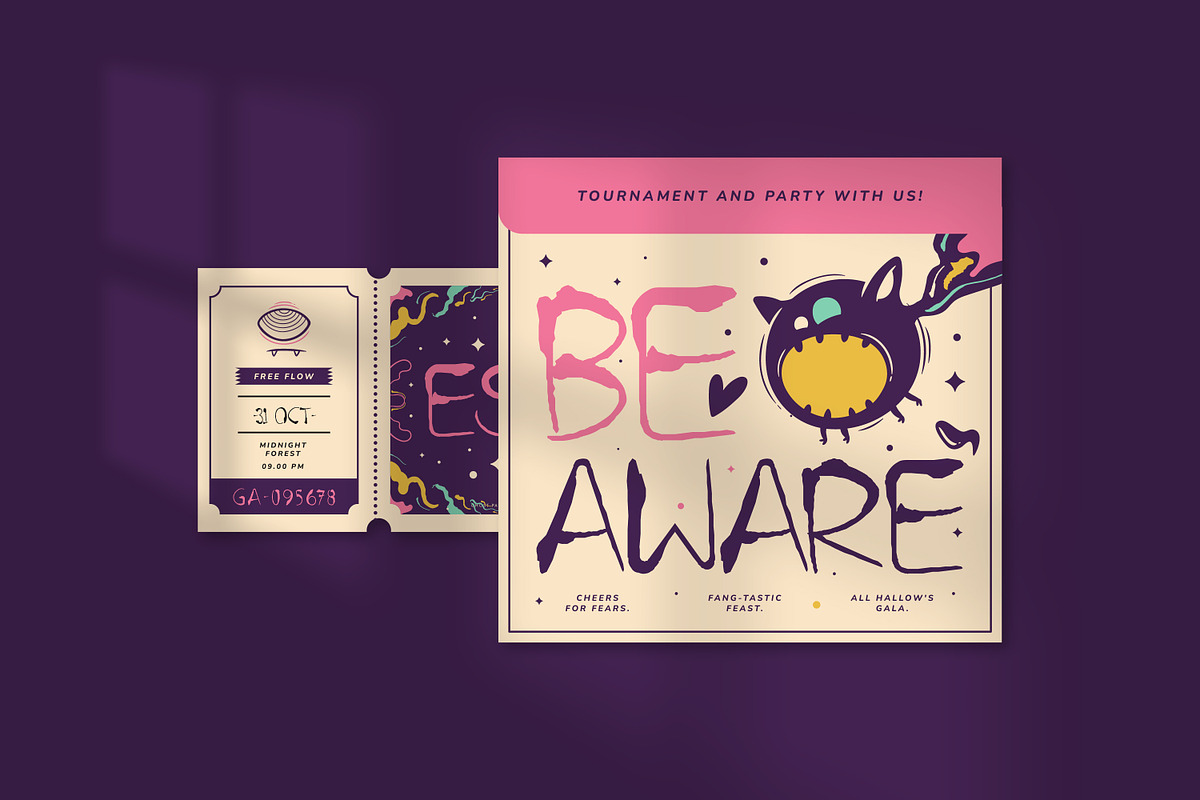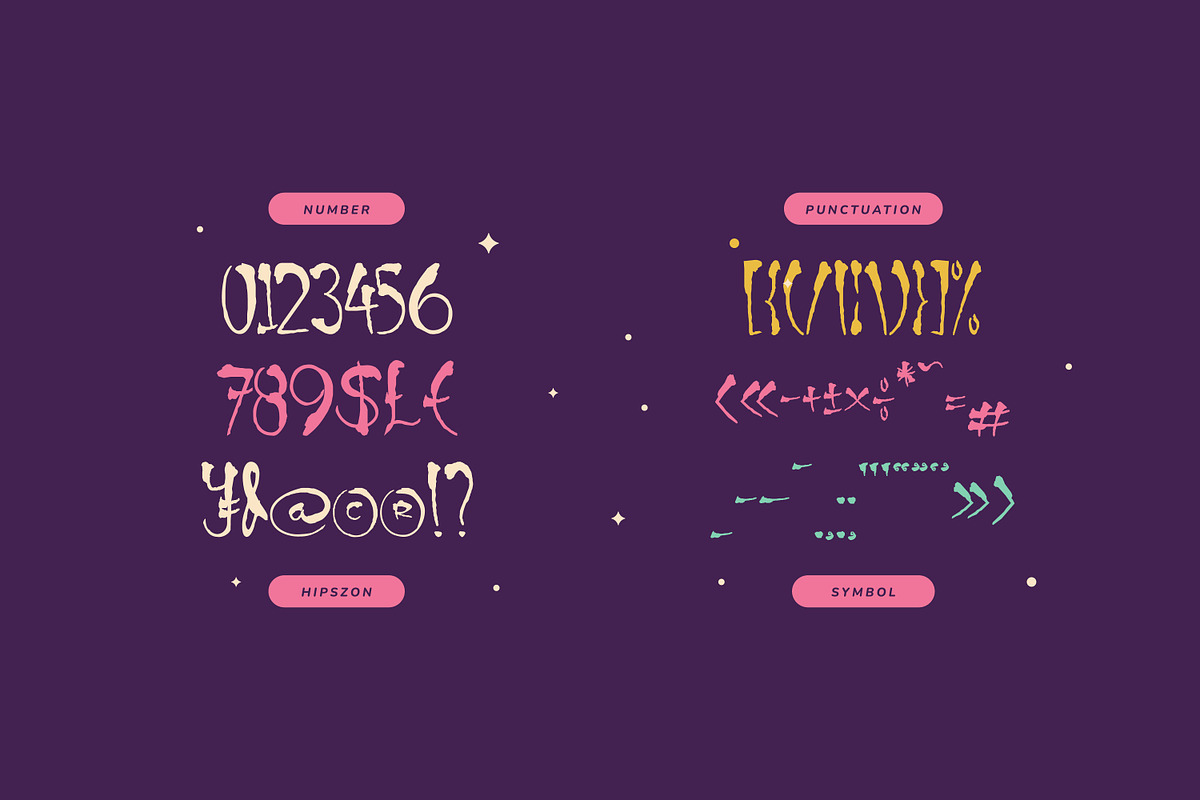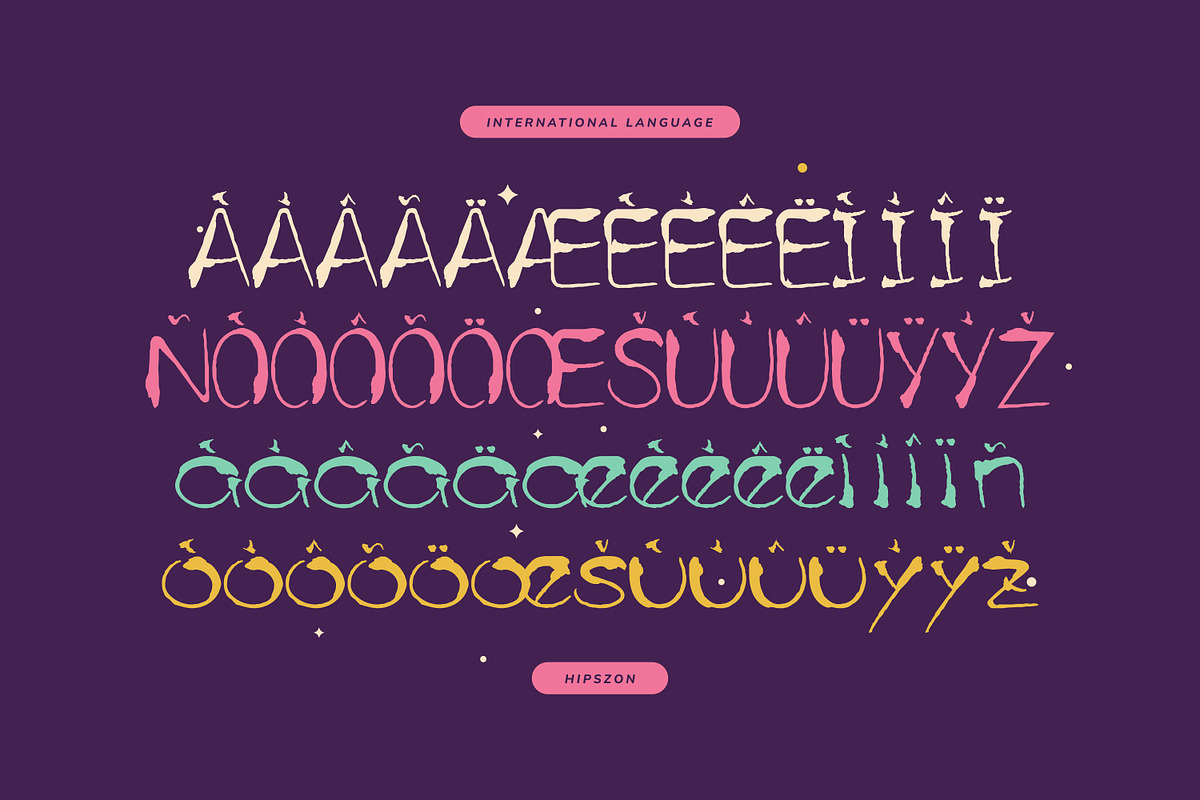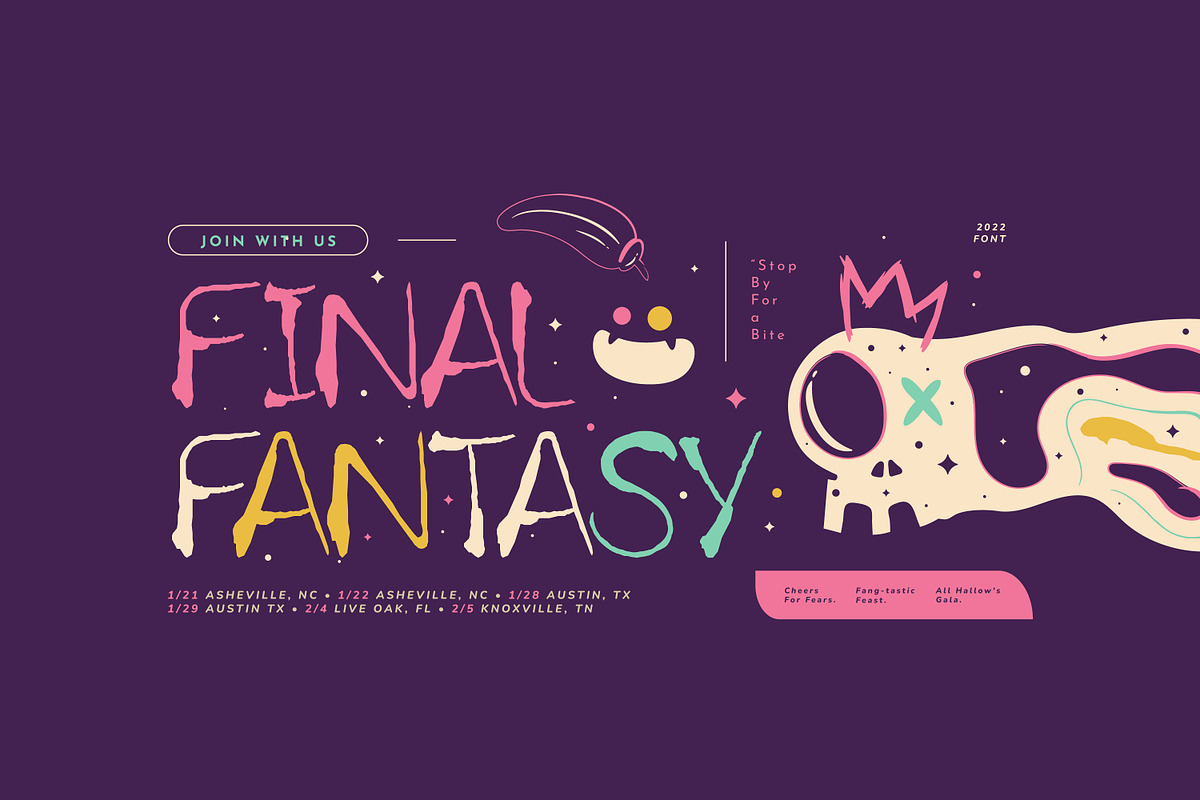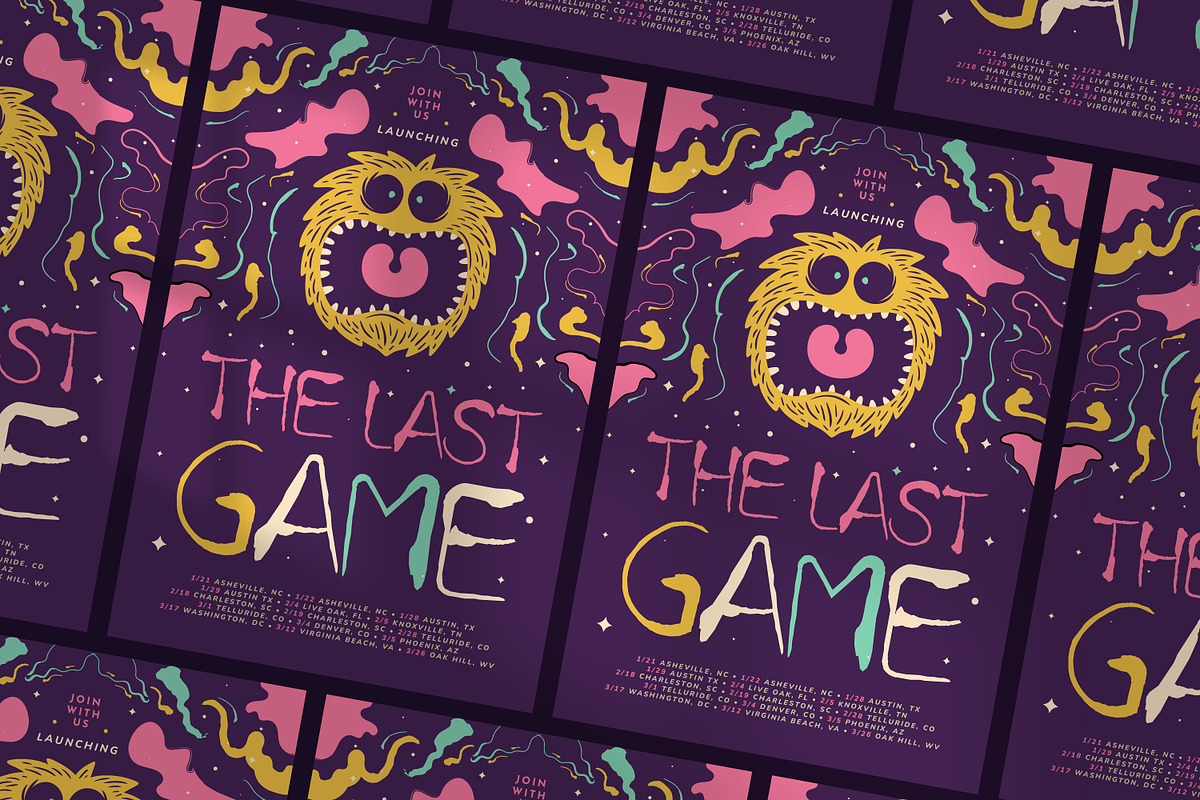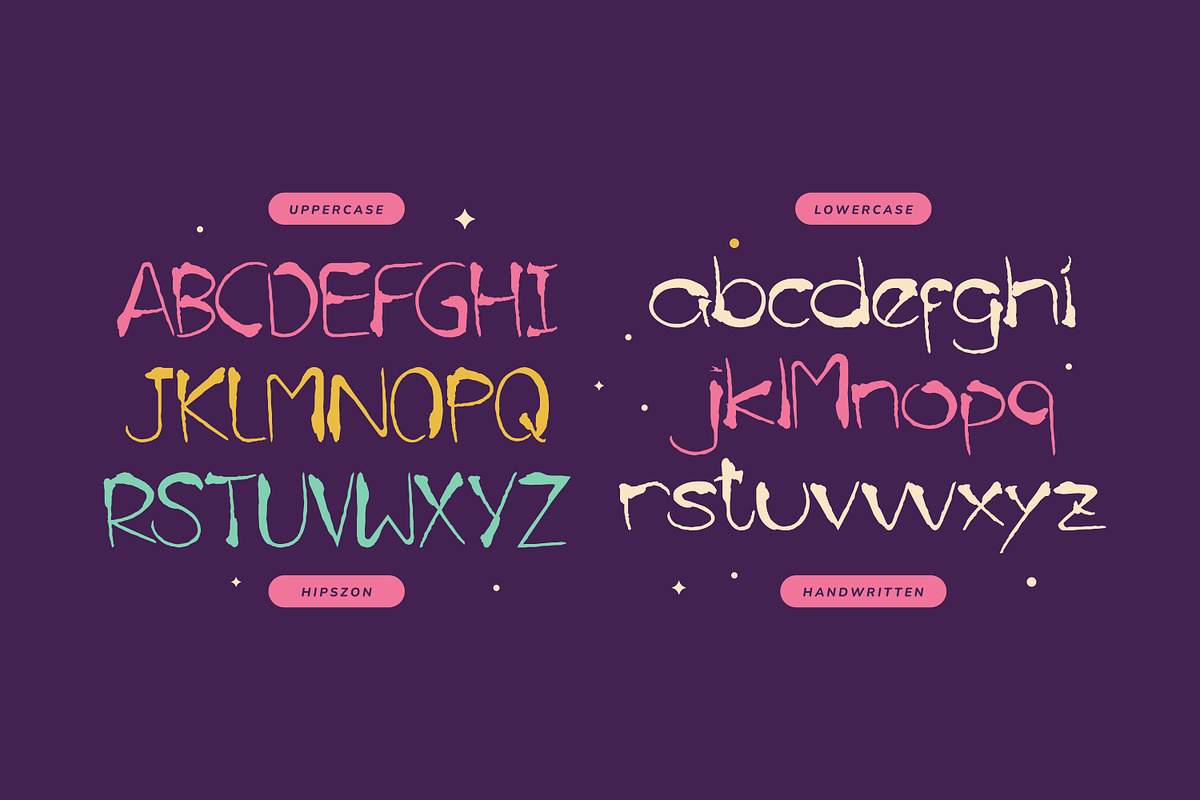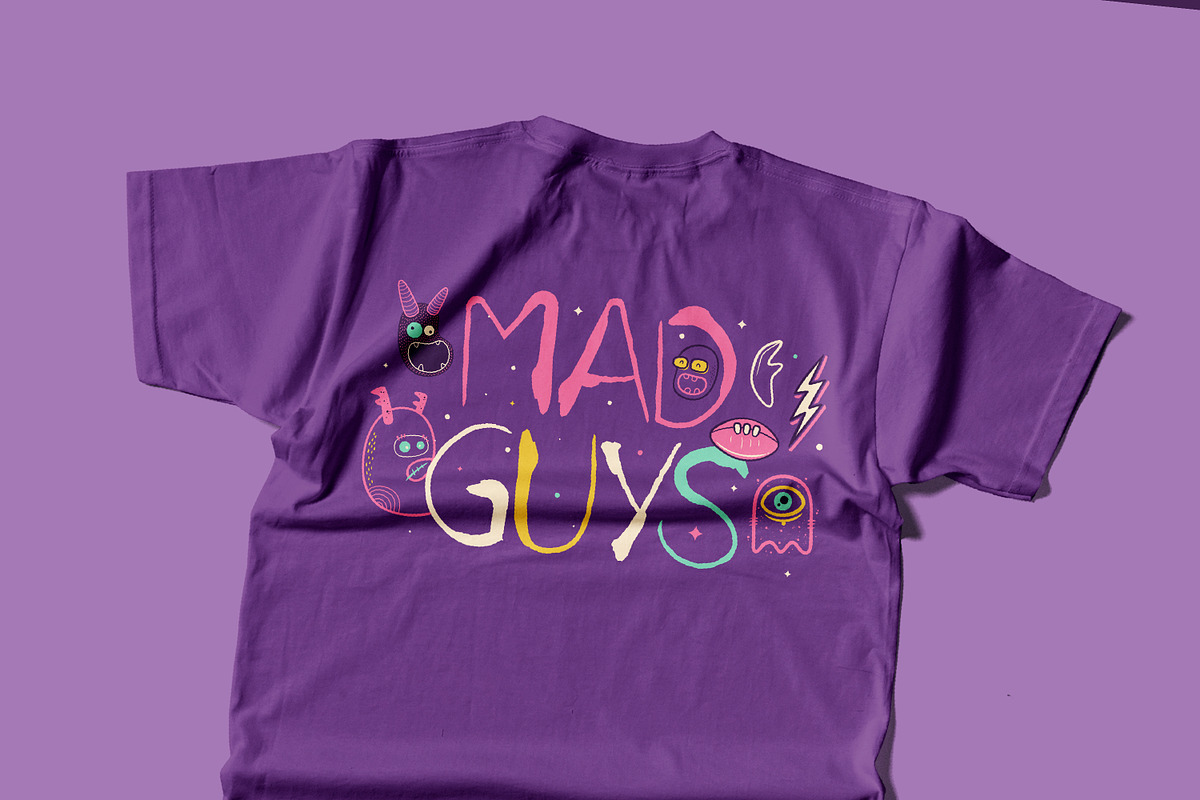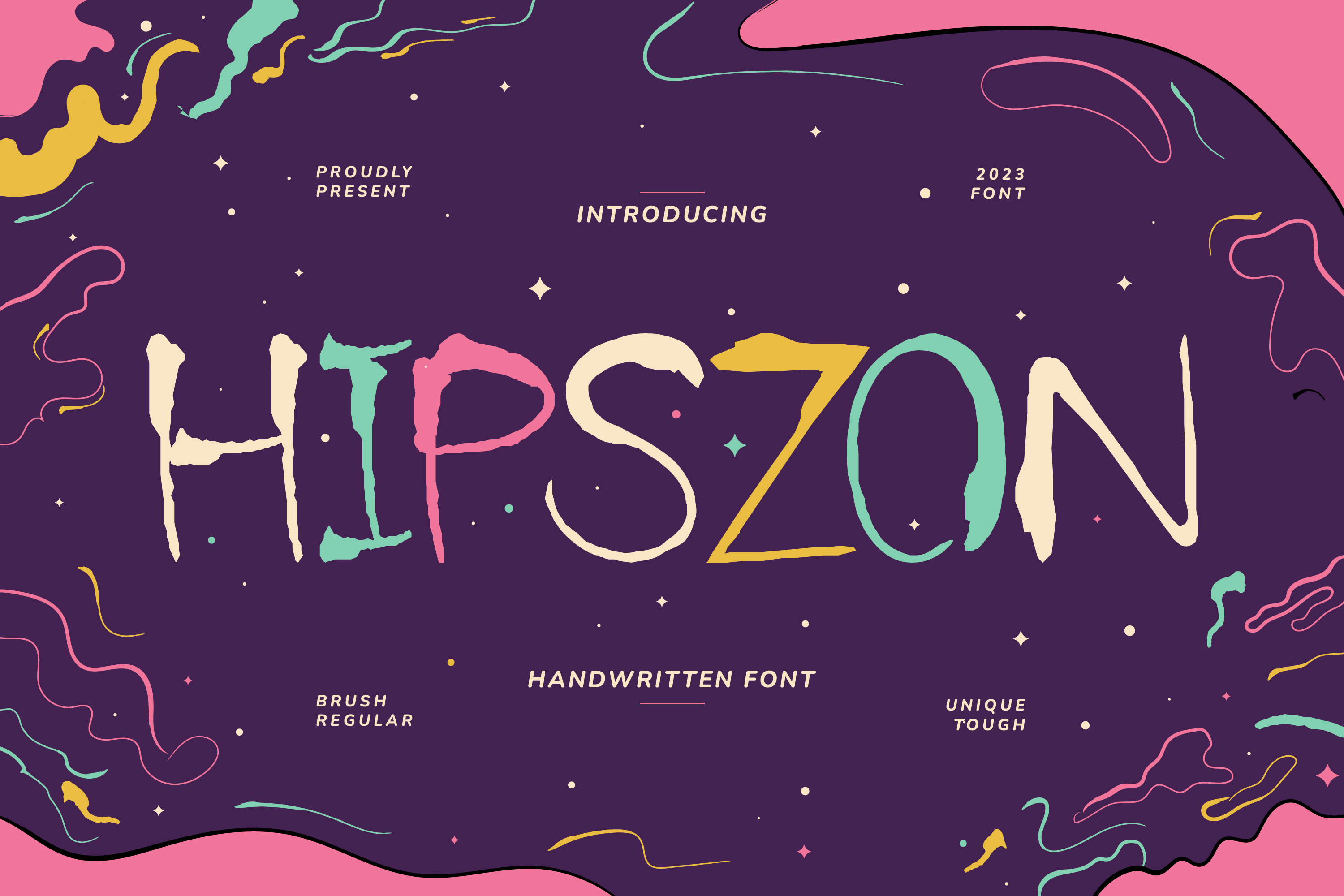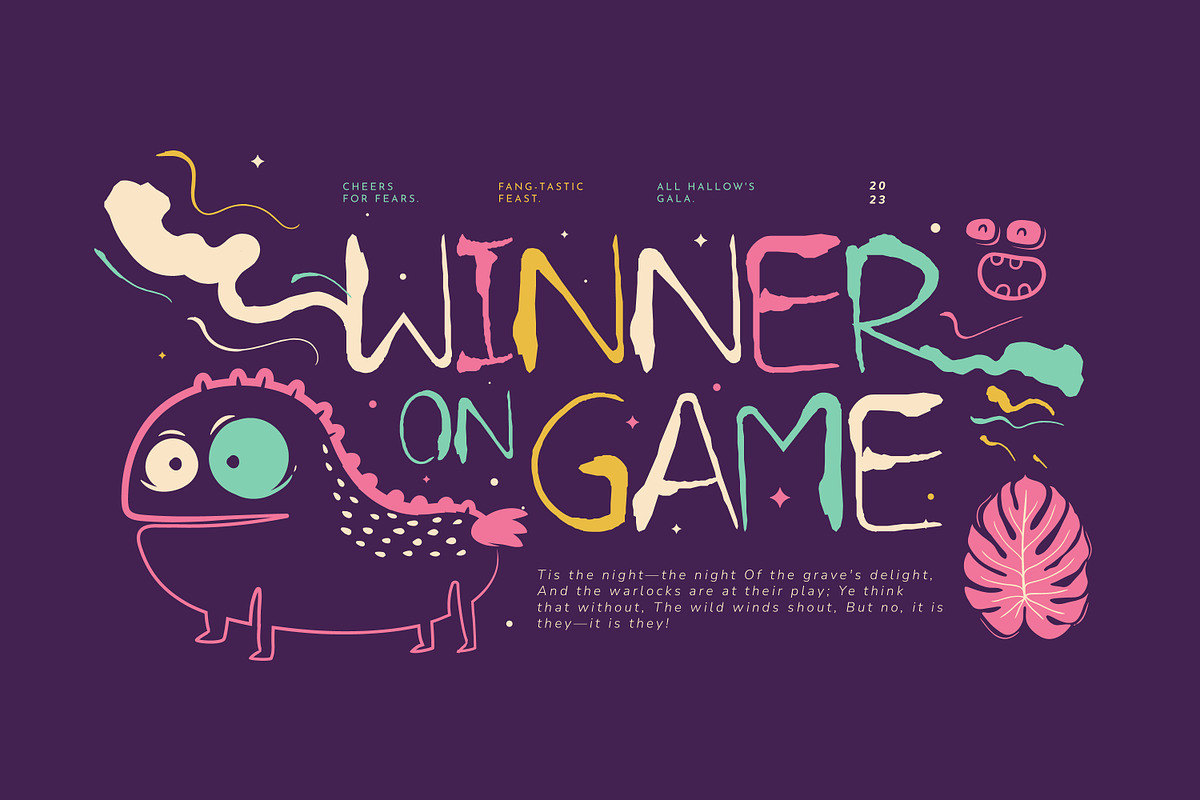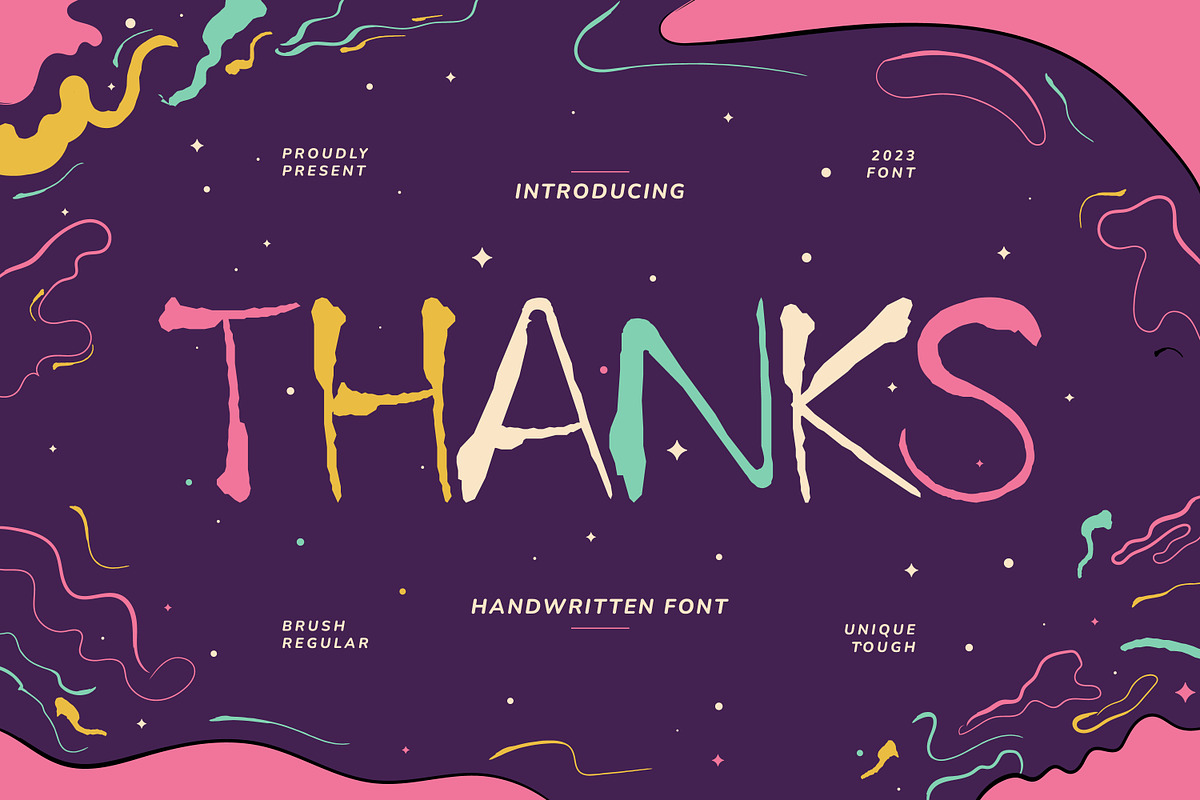
Hipszon Playful Font
Hipszon is a playful and attractive display font that is perfect for kids’ themes and designs. With its fun, childish style, it adds a touch of innocence and joy to any headline, logo, or advertisement.